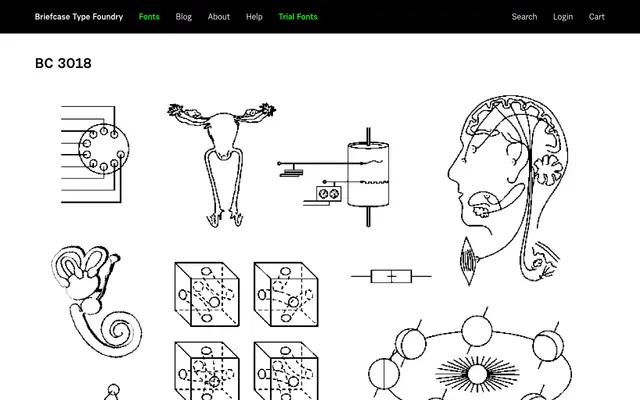
A sans-serif typeface from Briefcase Type Foundry with minimal page detail available at time of scraping.
BC 3018 is published by Briefcase Type Foundry, a Czech foundry known for precise, professionally finished typefaces. Limited information was available from the scraped page content, making detailed classification difficult. Further detail on weights, styles and intended use cases should be verified directly on the foundry's website.
The name BC 3018 suggests a geometric or grotesque sans; without further page content, the Briefcase Type Foundry's Central European focus and naming conventions point toward a clean sans-serif classification.